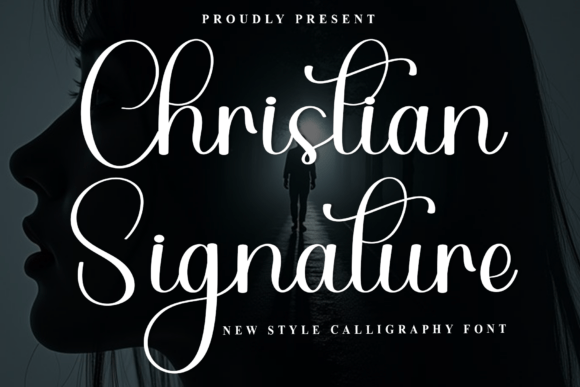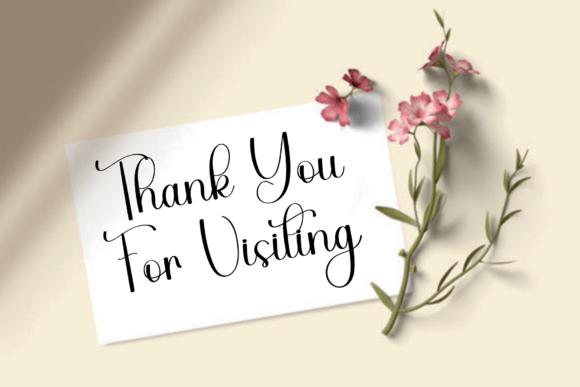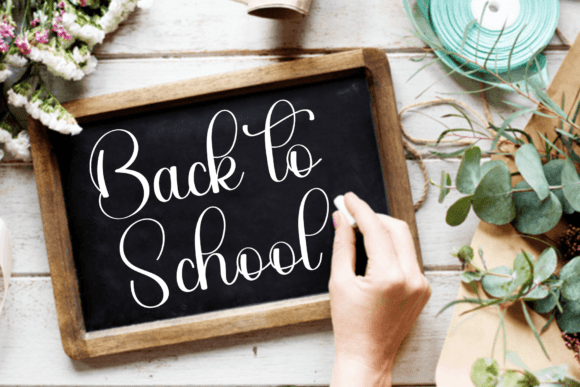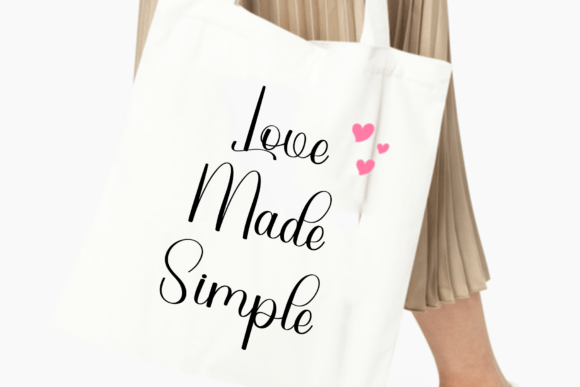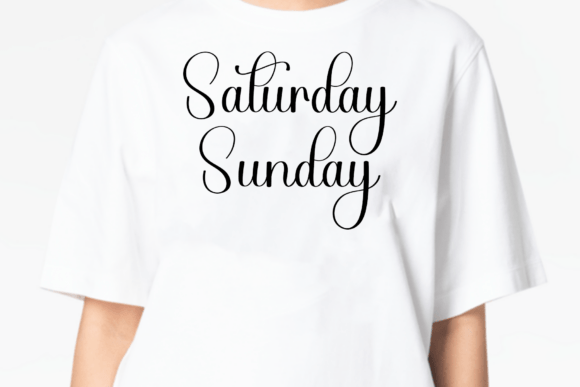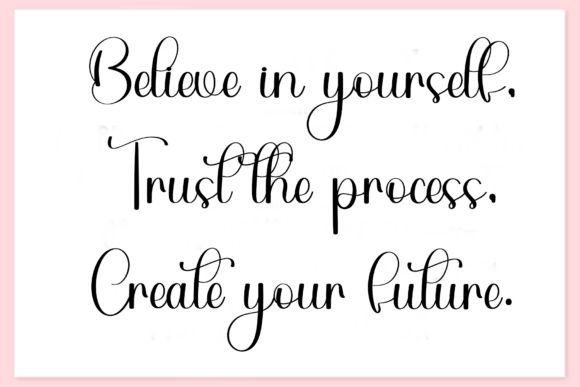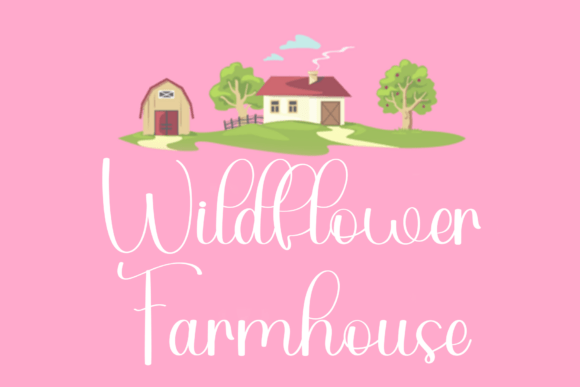
Discover the Art of Luxury Typography
There’s something magical about the first time you put pen to paper and create something beautiful. The flow of ink, the dance of letters, the way it all comes together to convey your message. For designers, this moment is a thrill that never gets old. But what if you could take that magic to the next level? Introducing Christian Signature Font, a new style calligraphy font that’s designed to make a lasting impression.
This exquisite typeface is perfect for designers who want to add a touch of sophistication to their work. With its elegant, sweeping cursive letterforms and dramatic ascenders, Christian Signature Font is the perfect choice for luxury fashion branding, professional watermarks, and upscale wedding invitations. Its balanced weight and rhythmic flow make it a valuable addition to any designer’s toolkit, and its “boutique-personal” soul is sure to set your work apart.
Christian Signature Font Key Features
- Unique Characteristics: Features a distinctive, hand-drawn design with intricate details and flourishes, making it ideal for formal and personal signatures
- Script Variations: Includes multiple script variations, allowing users to customize their signature to suit their personal style
Christian Signature Font Review
I recently had the chance to work with the Christian Signature Font, and I wanted to share my honest thoughts with you.
- Unique aesthetic: The font has a distinctive, cursive feel that sets it apart from more common fonts.
- Good legibility: At larger sizes, the font is easy to read and understand, making it suitable for body text or headings.
- Customization options: The font comes with various font weights and styles, allowing you to tailor it to your design needs.
- Not ideal for small text: At smaller sizes, the font’s cursive nature can make it difficult to read, especially for those with visual impairments.
- May not be suitable for bold or technical content: The font’s aesthetic is more suited to creative or artistic projects, and may not be the best choice for presenting technical information.
- Some font weights feel inconsistent: While the font comes with various weights, some of them feel less polished or less well-designed than others.
Overall, I think the Christian Signature Font is a solid choice for designers looking for a unique, cursive font. While it may not be perfect, its strengths outweigh its weaknesses, and it can be a great addition to the right project.
Some common use cases for the Christian Signature Font include:
1. Creating personalized Bibles or devotionals.
2. Designing Christian-themed merchandise, such as t-shirts or mugs.
3. Adding a touch of faith to wedding invitations or ceremony programs.
4. Creating inspirational quotes or sayings for social media or print materials.
Alternatives to Christian Signature Font for Designers
Great Vibes is a modern, elegant script font that works well for invitations, weddings, and other formal events. It features connected strokes and flowing lines, giving it a unique and sophisticated feel. Great Vibes is a good alternative to Christian Signature Font for designers who want a more polished and refined look.
Comparison: While Christian Signature Font has a more vintage and distressed feel, Great Vibes is more contemporary and refined. Great Vibes is ideal for designs that require a touch of elegance and sophistication.